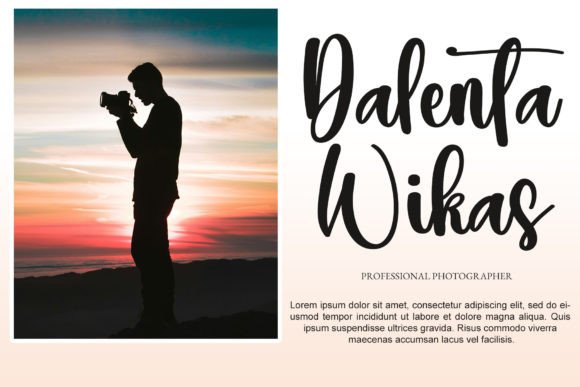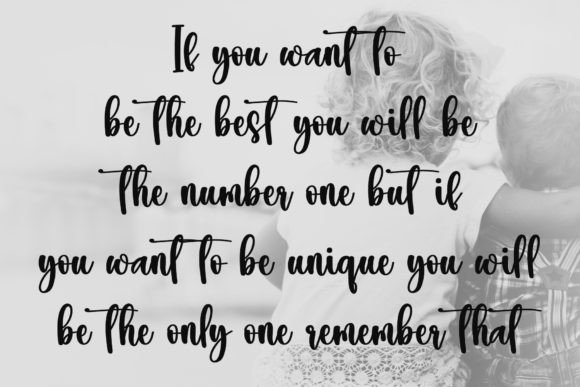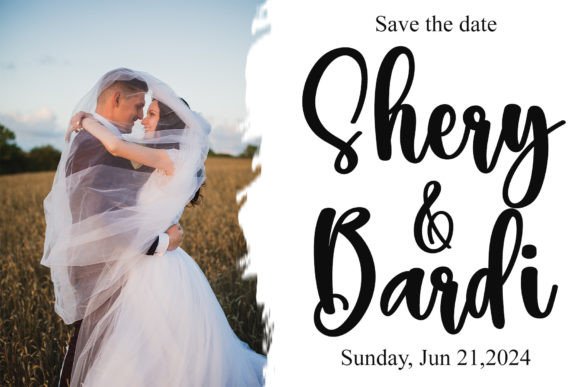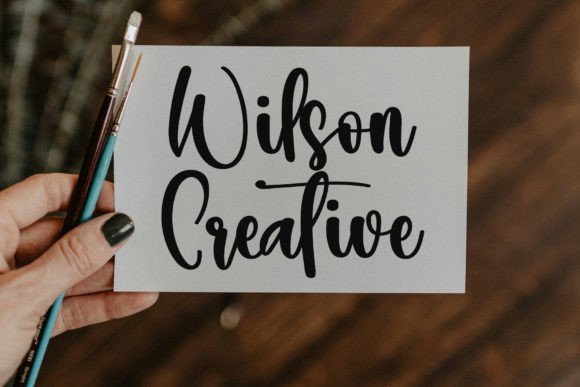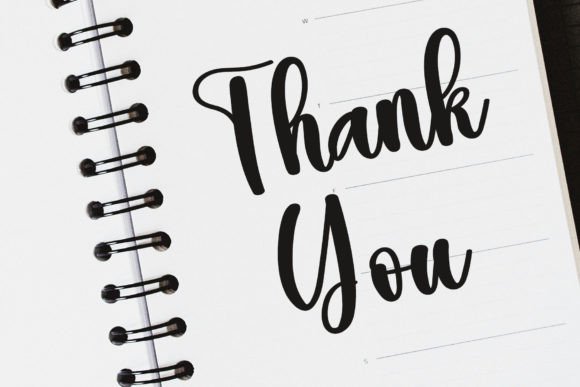
The Joy of Creativity: Unleashing the Magic of Basking Font
Have you ever stared at a blank canvas, feeling the thrill of a new project waiting to be born? The rush of ideas, the spark of inspiration – it’s a moment that every creative person knows and loves. And for designers, the right tools can make all the difference. That’s where the Basking Font comes in, a stylish and modern handwritten font that’s designed to add a touch of happiness to any creation.
From greeting cards to headlines, branding and packaging, the Basking Font is the perfect companion for any design project. Its PUA encoding makes it easy to access all the amazing glyphs and ligatures, giving you the freedom to get creative and have fun with your designs. Whether you’re a seasoned pro or just starting out, the Basking Font is a valuable addition to any designer’s toolkit.
Basking Font Key Features
- Unique Characteristics: Basking Font features a unique, hand-drawn design with subtle texture and imperfections, giving it a warm and inviting feel.
Basking Font Review
As a designer, I was excited to dive into the Basking Font and see what it had to offer. Overall, I was pleasantly surprised by its unique charm and potential for creative projects.
- The Basking Font has a distinctive, hand-drawn feel that adds a touch of warmth and personality to any design.
- The font is highly customizable, with a wide range of weight and style options to suit different design needs.
- The font’s unique letterforms and flourishes make it perfect for adding visual interest to headings and titles.
- The font’s legibility can be compromised at smaller font sizes, making it less suitable for body text or large blocks of text.
- The font’s unique style may not be to everyone’s taste, and some designers may find it too ornate or distracting.
- The font’s weight and style options can be overwhelming, making it difficult to choose the right one for a particular project.
The Basking Font is a great choice for designers looking to add a touch of whimsy and personality to their projects. While it may not be suitable for every design task, its unique charm and customization options make it a valuable addition to any designer’s toolkit.
To get the most out of Basking Font, use it for:
1. Branding and logos, as it can add a unique touch.
2. Creative projects, such as illustrations and graphics.
3. Adding a personal touch to documents and presentations.
Remember to use the font in moderation to avoid overwhelming the design.